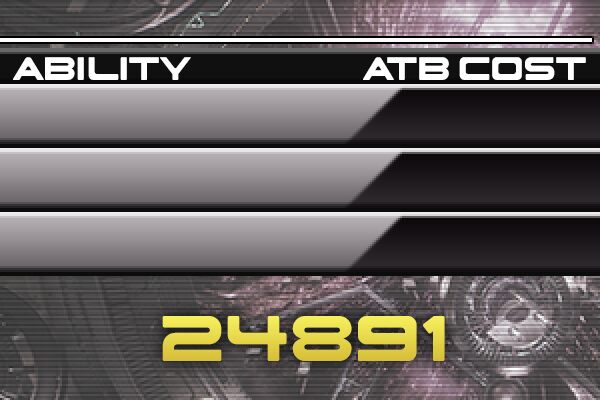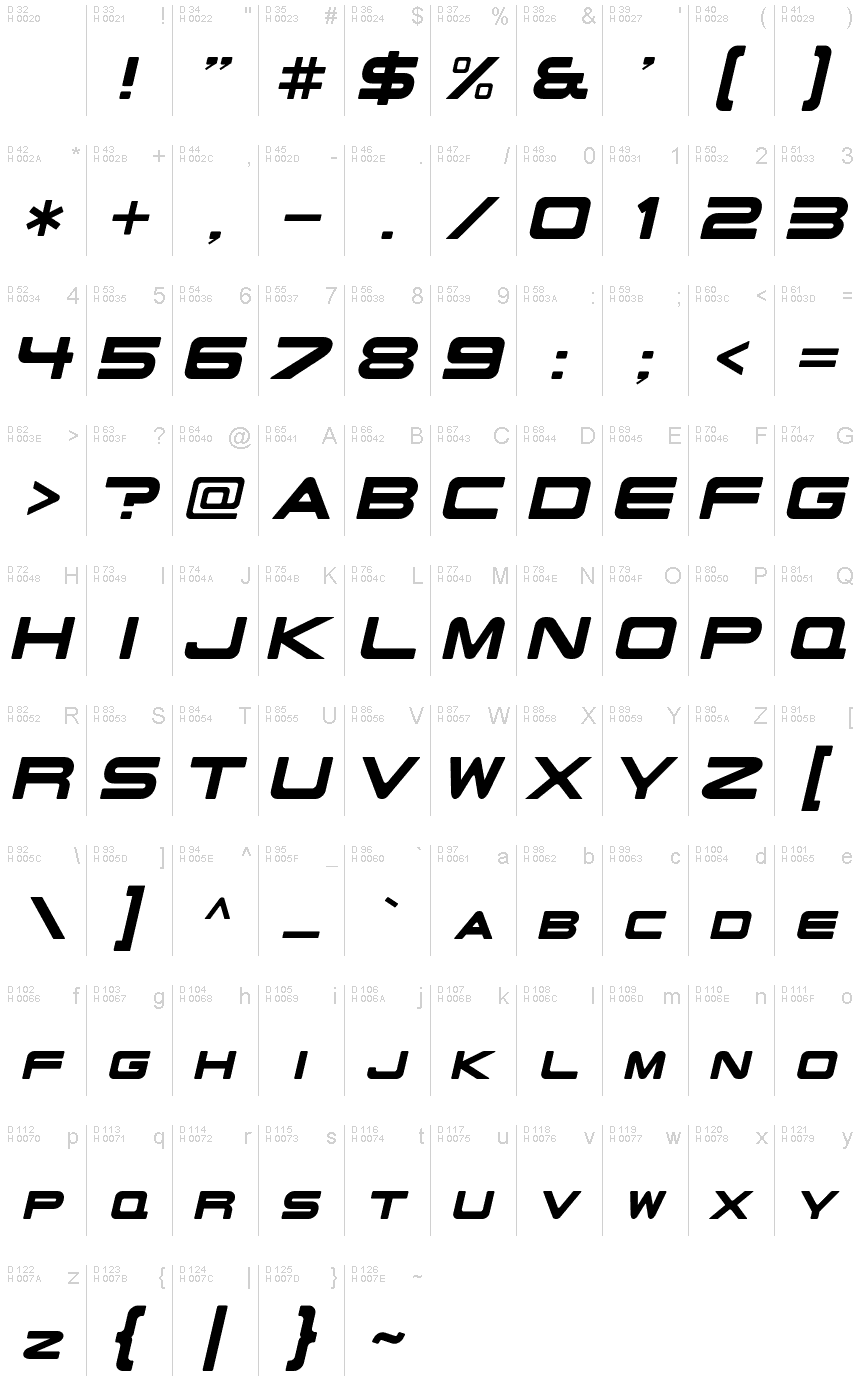
Fabula Pulse Italic
Fabula Pulse Italic is a bold, futuristic sans serif typeface designed by Adam Alexander Croke. This display font is perfect for creating standout designs with its wide width and italic style. With its eye-catching appeal, it can be used to add a modern flair to logos, posters and promotional materials. Fabula Pulse Italic is also ideal for creating captivating titles for webpages or magazines.
This font family is inspired by two supplementary fonts seen within Final Fantasy XIII (a trademark of Square Enix).